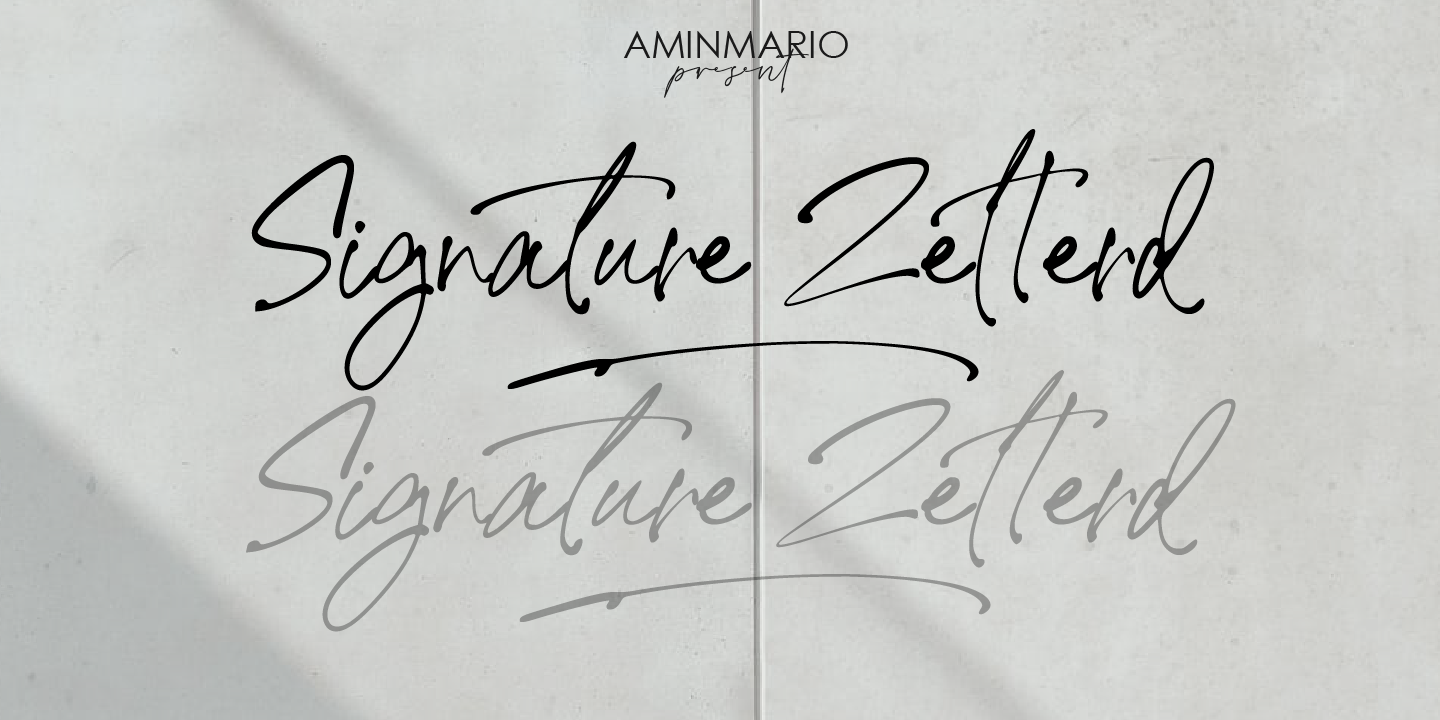
The Signature Zetterd Font Free Download is an exceptional choice for projects that need a personal, elegant, and authentic feel. Its fluid, flowing letterforms and graceful connections mimic genuine handwriting, making it perfect for creating a sense of intimacy and artistic flair. This font is a superb fit for high-end branding, wedding invitations, and stylish social media graphics. Whether you're designing a logo for a boutique business, a title for a photography portfolio, or a watermark for a creative project, the Signature Zetterd Font adds a layer of authenticity and sophistication, ensuring your message is not just read, but felt.
What makes this font so exciting is its masterful blend of handcrafted charm and professional finish. The Signature Zetterd Font is designed with meticulous attention to detail, featuring beautiful ligatures and stylistic alternates that allow for a truly customized look. This makes it an ideal choice for creating unique logos and headlines that feel bespoke and personal. Despite its stylistic complexity, the font is crafted to maintain excellent readability, ensuring your message is both beautiful and clear. It’s a typeface that works hard to combine the charm of a handwritten note with the polish of a high-quality design, making it a valuable asset for any creative project.
The Signature Zetterd Font family often includes a variety of stylistic alternates and ligatures to give you more creative control. These features allow you to customize the look of your text, making it appear even more like authentic handwriting. You can connect different letters and create unique character combinations to avoid repetition and give your design a truly one-of-a-kind feel. The Signature Zetterd Font Free Download is an excellent opportunity to explore these additional features and see how they can work together to create a cohesive and deeply personal brand identity.
By choosing the Signature Zetterd Font Free Download, you're opting for a typeface that embodies grace, authenticity, and personal style. It’s a font that works tirelessly to not only convey information but also to create an intimate and memorable connection with your audience, ensuring your projects leave a lasting impression.